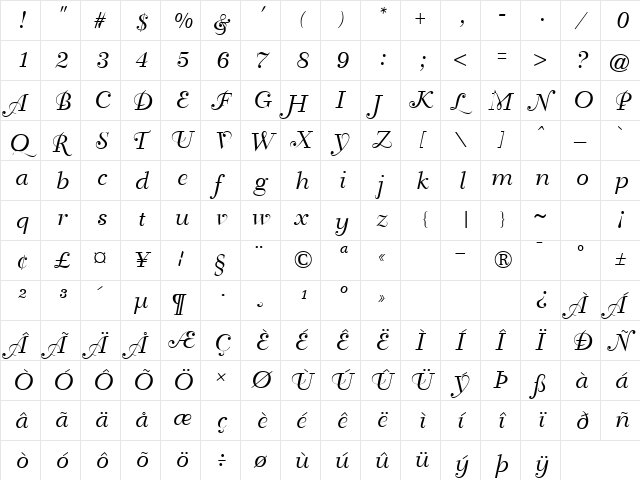
GE TravelScript Regular
Design Context for GE TravelScript Typeface
GE TravelScript flows with the natural rhythm of handwritten lettering, making it ideal for designs that call for warmth and personal expression.
Font Pairing: Combine GE TravelScript with a simple geometric sans for maximum contrast — the tension between flowing curves and clean structure is a classic typographic pairing.
Pro Tip: Pair GE TravelScript with a clean sans-serif for supporting text. The contrast between fluid script and geometric structure creates an elegant typographic hierarchy.